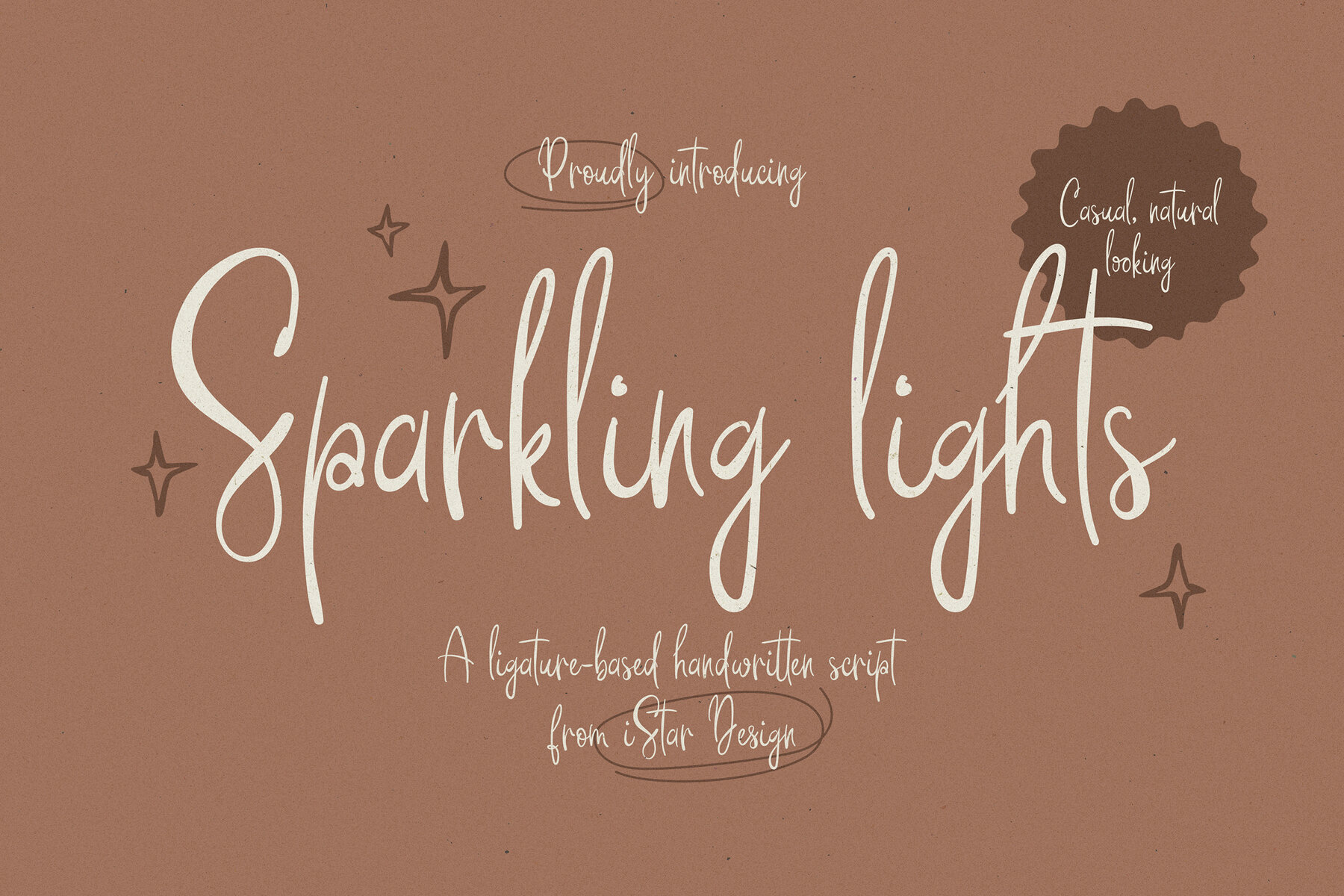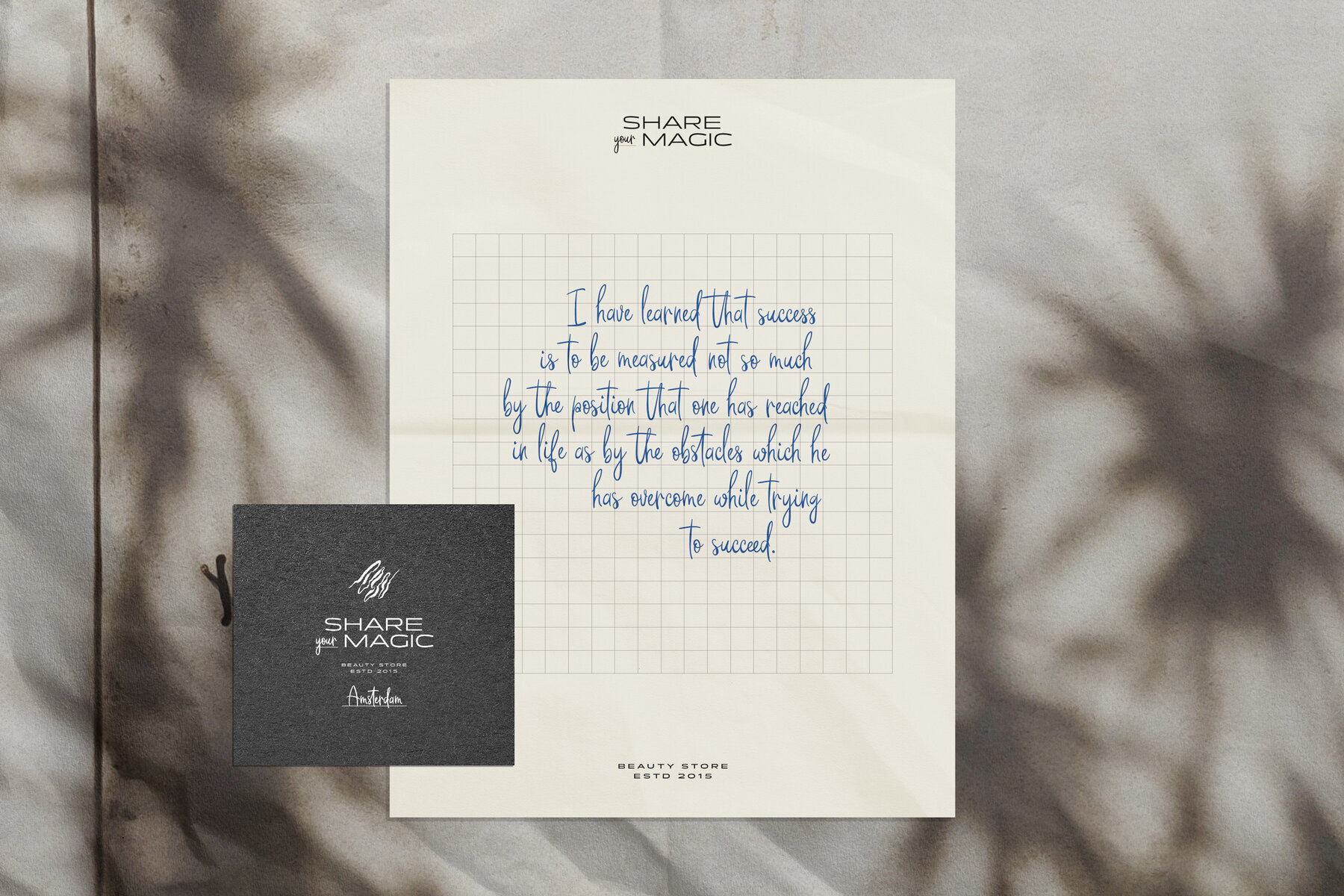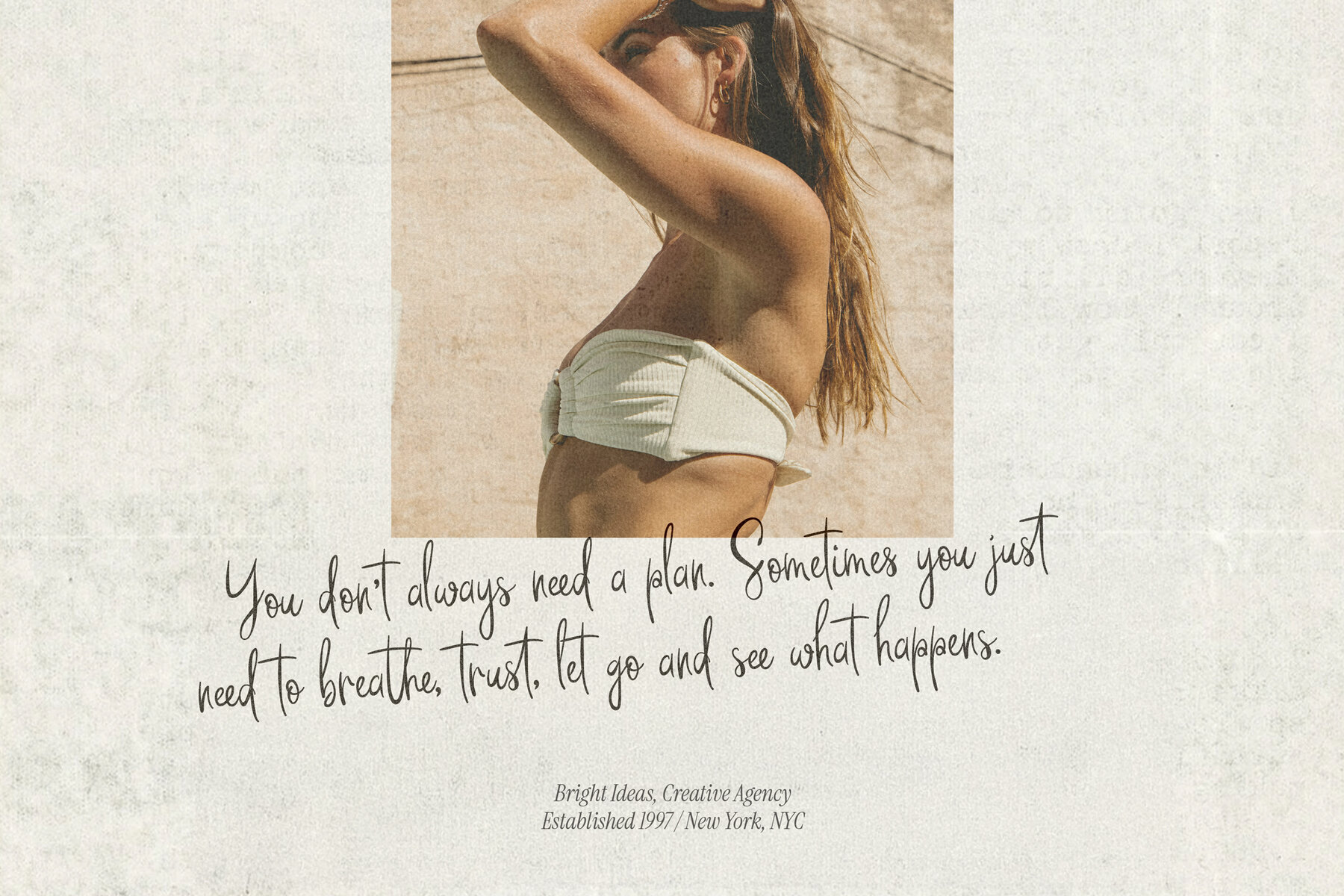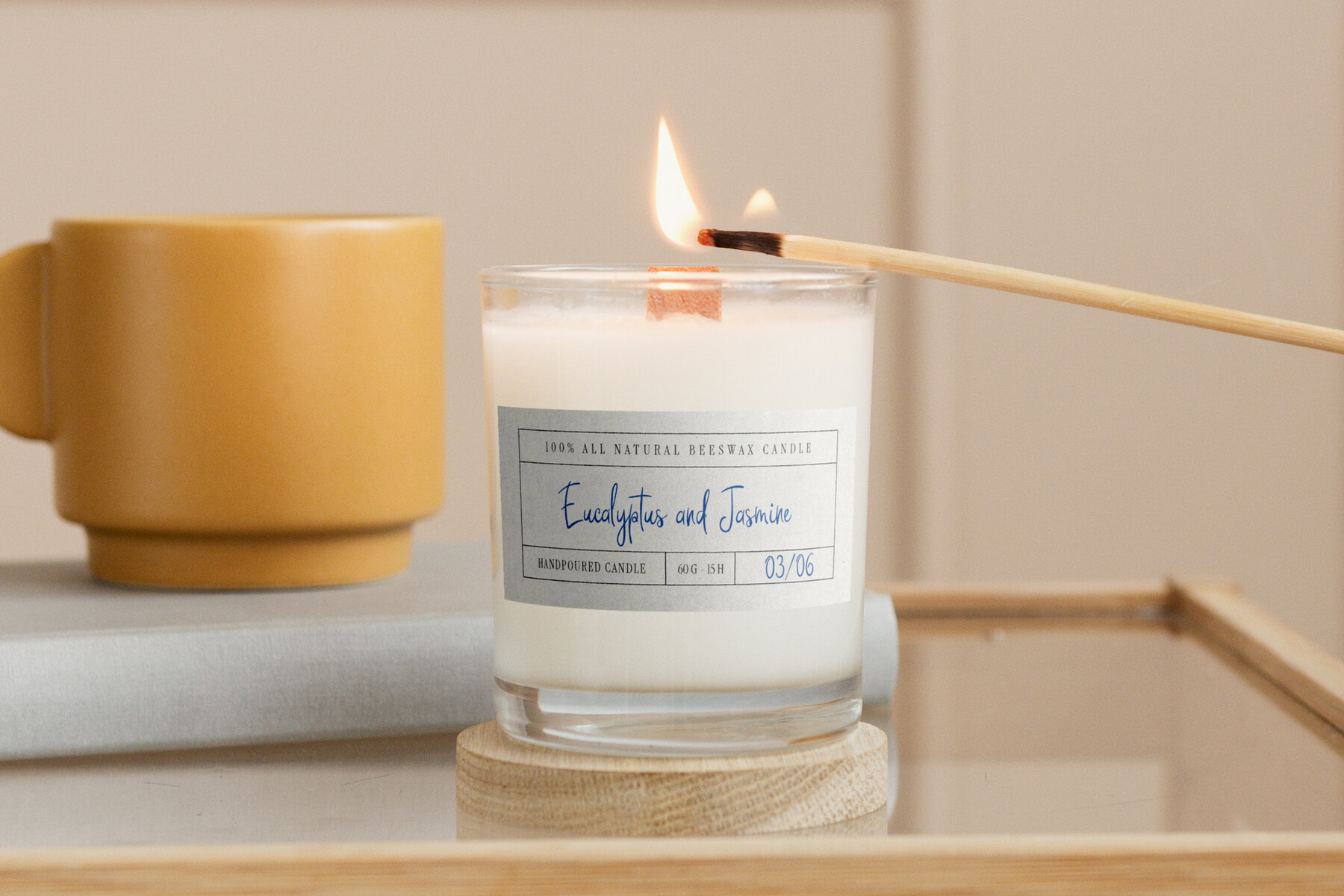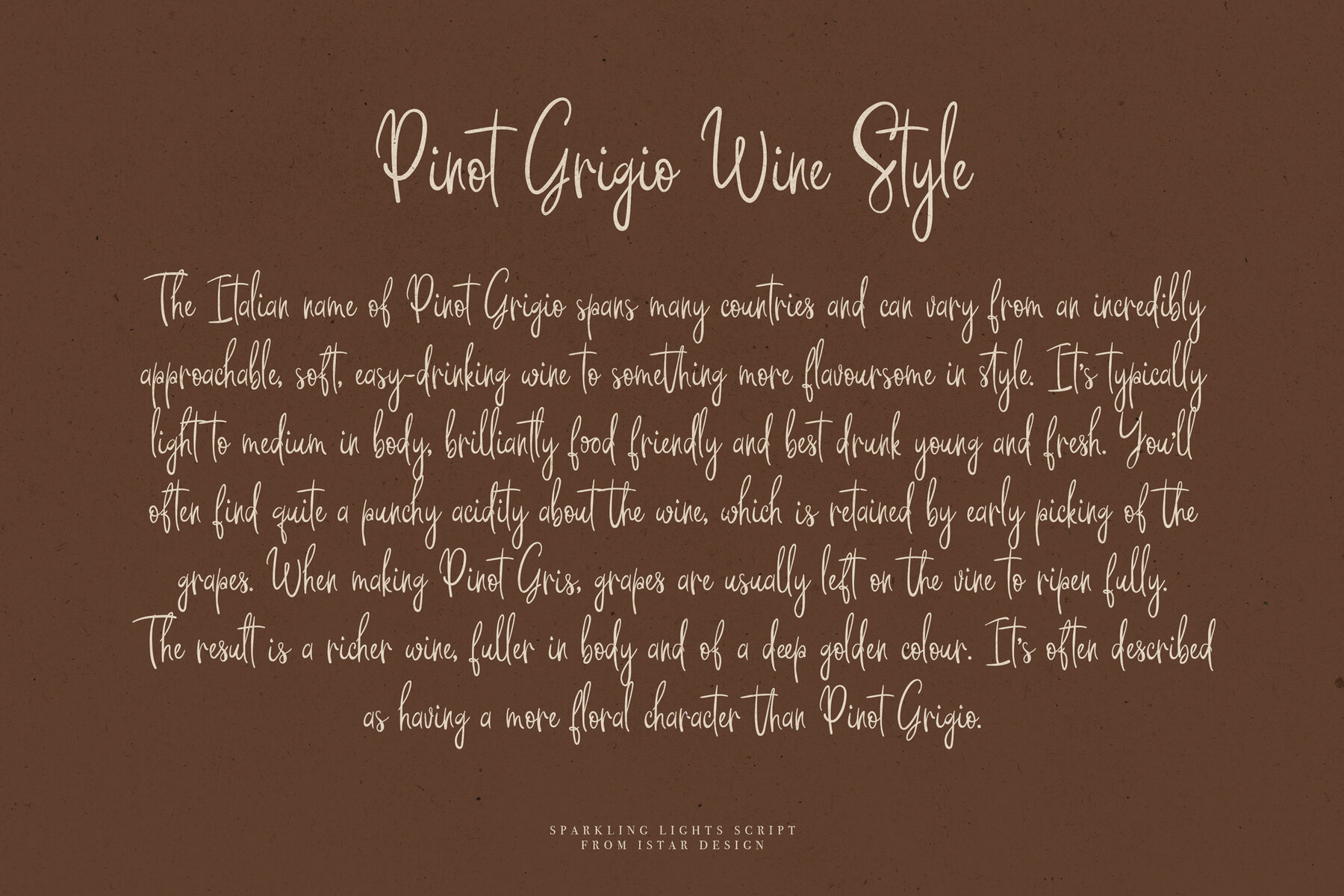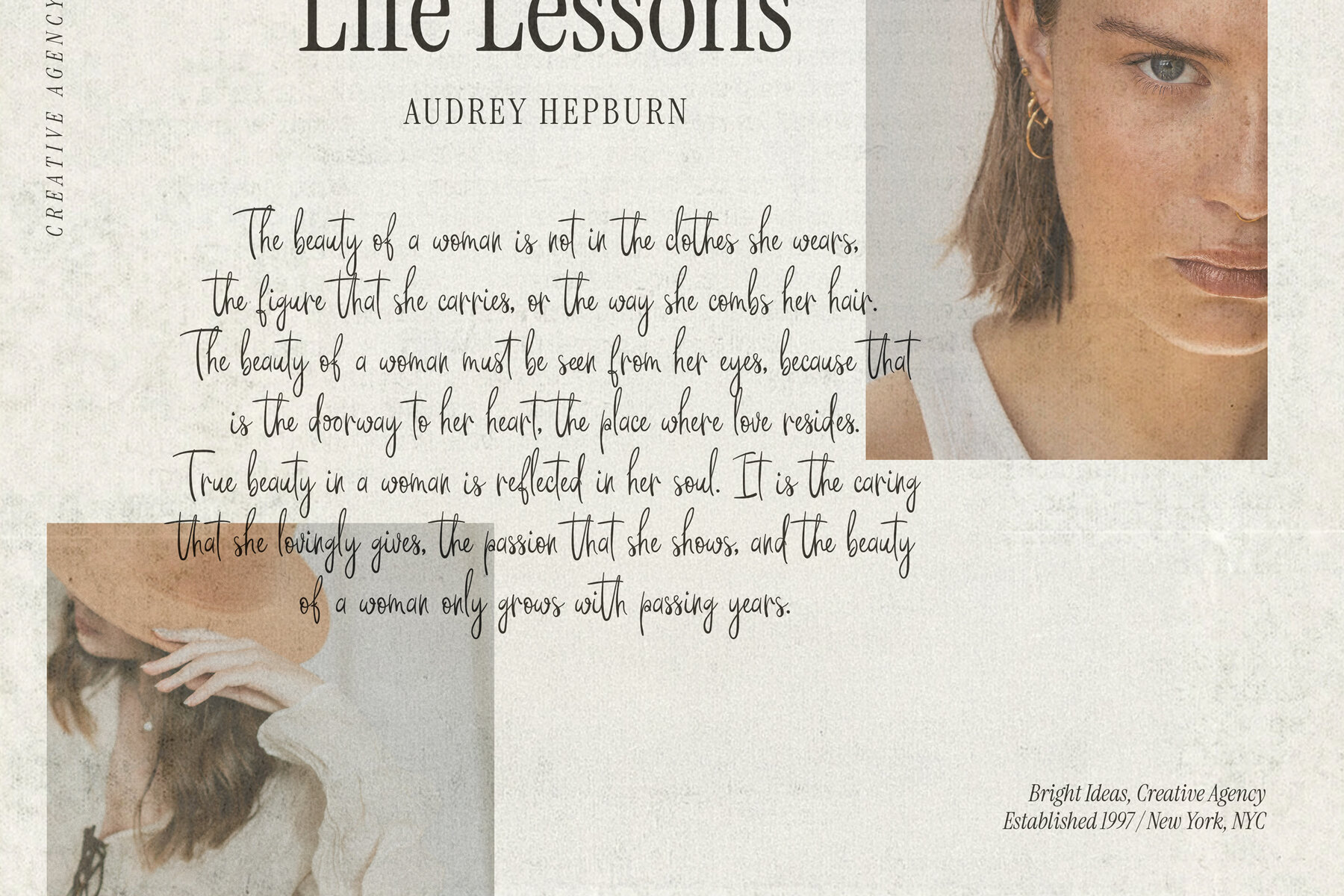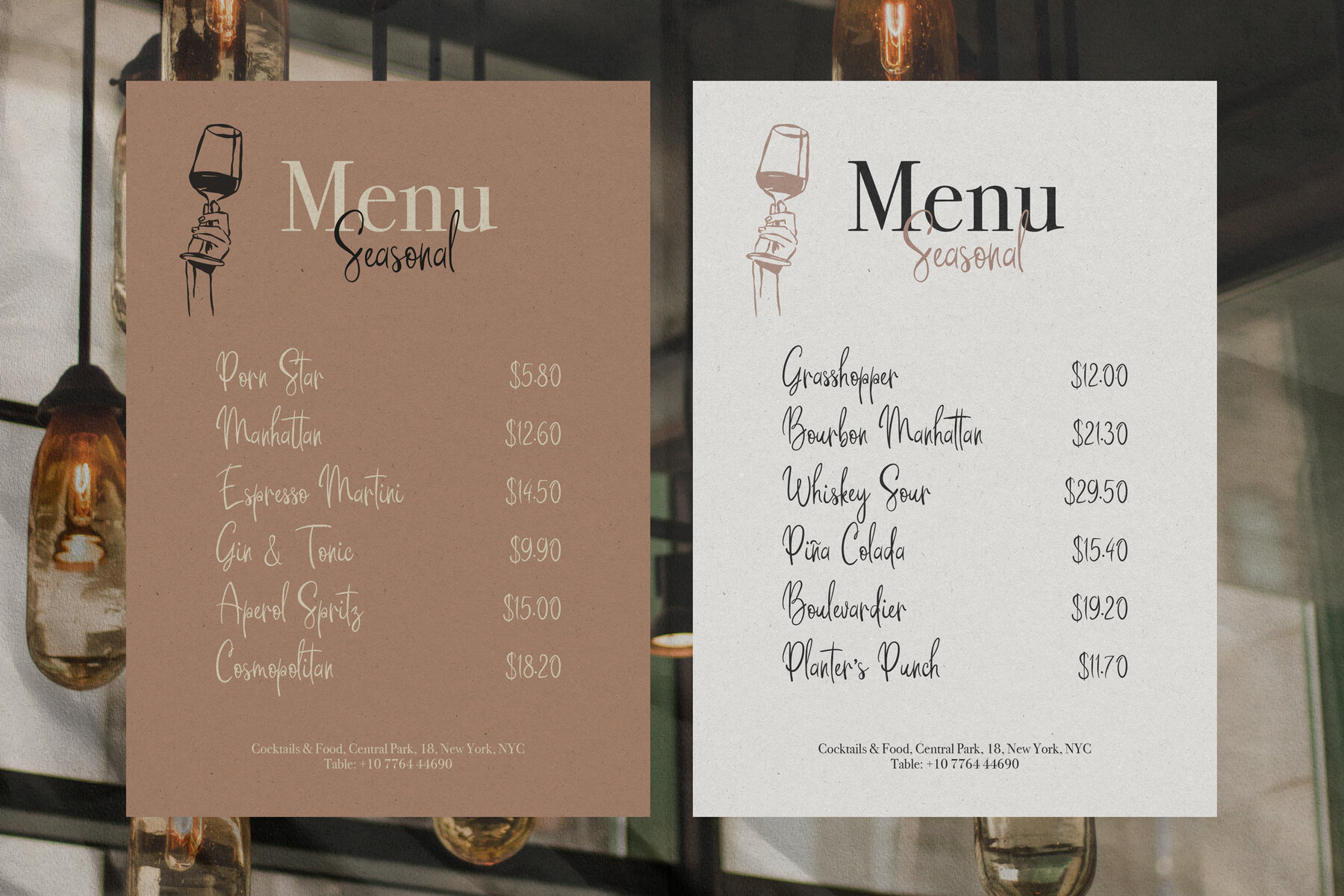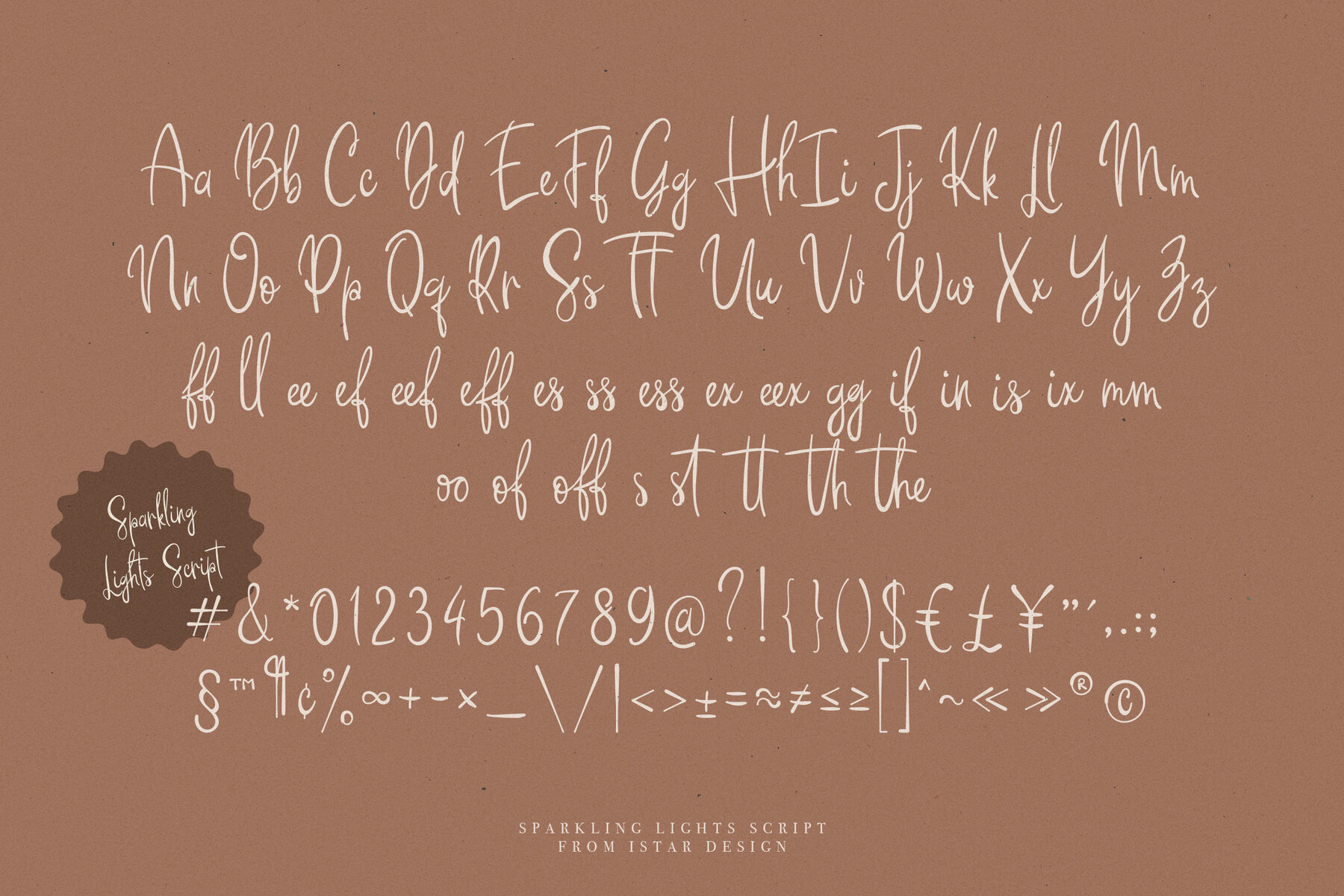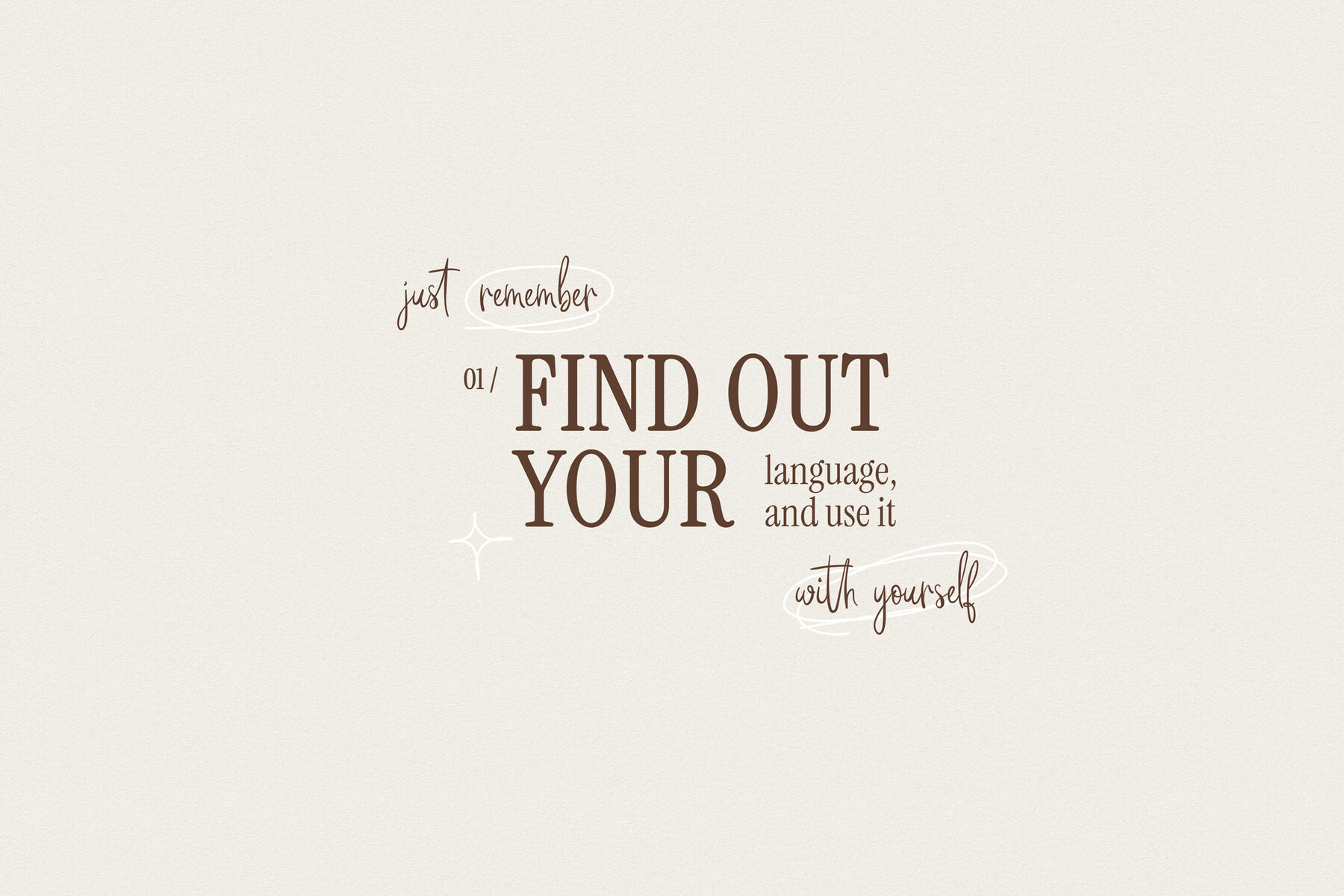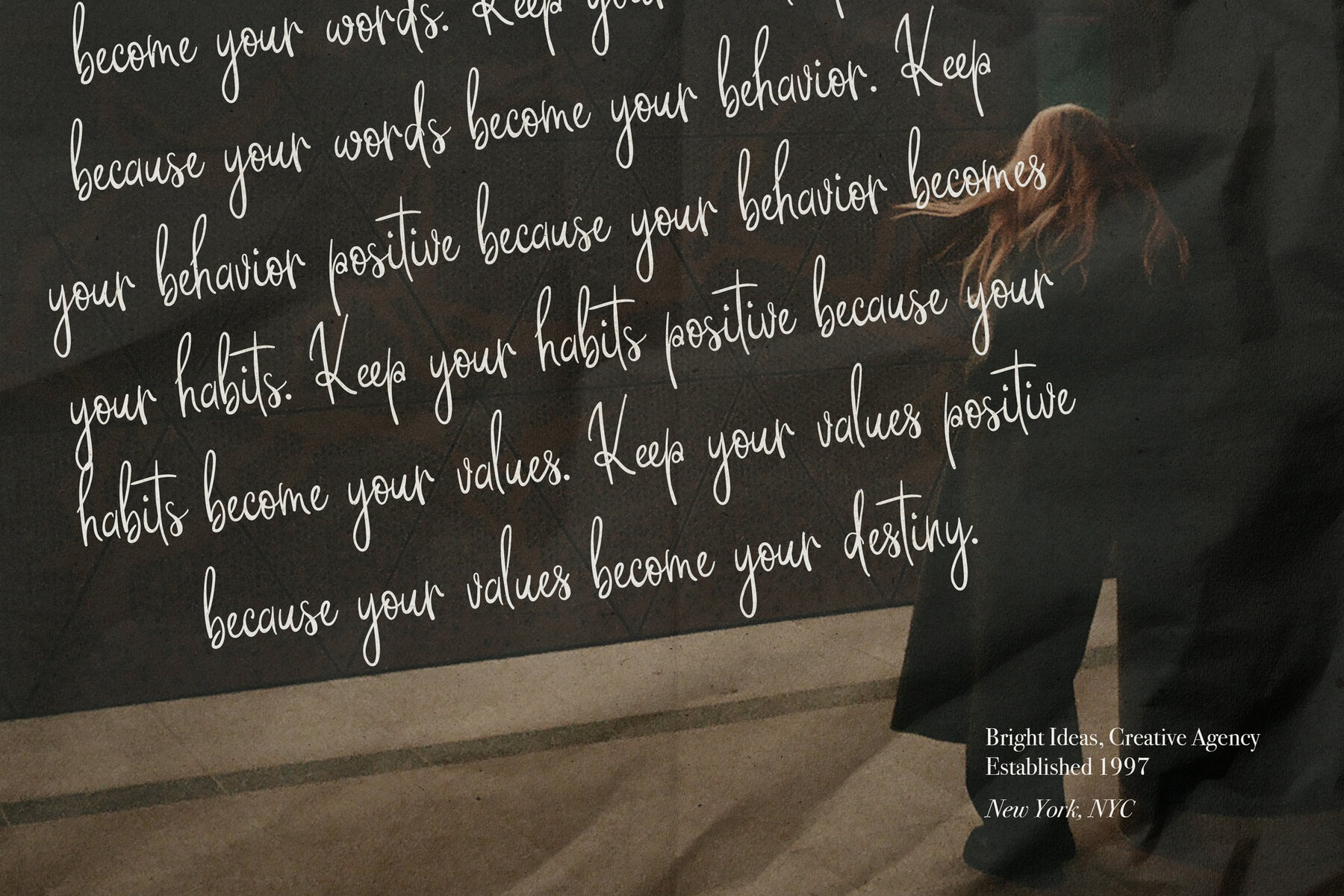
Sparkling Lights Font
Sparkling Lights
Sparkling Lights Script delivers a natural handwritten aesthetic to your design projects. Its seamless OpenType ligatures ensure that each letter flows gracefully into the next, offering a cohesive and authentic look. Ideal for social media graphics, professional presentations, or any creative endeavor that benefits from a genuine, personal touch.